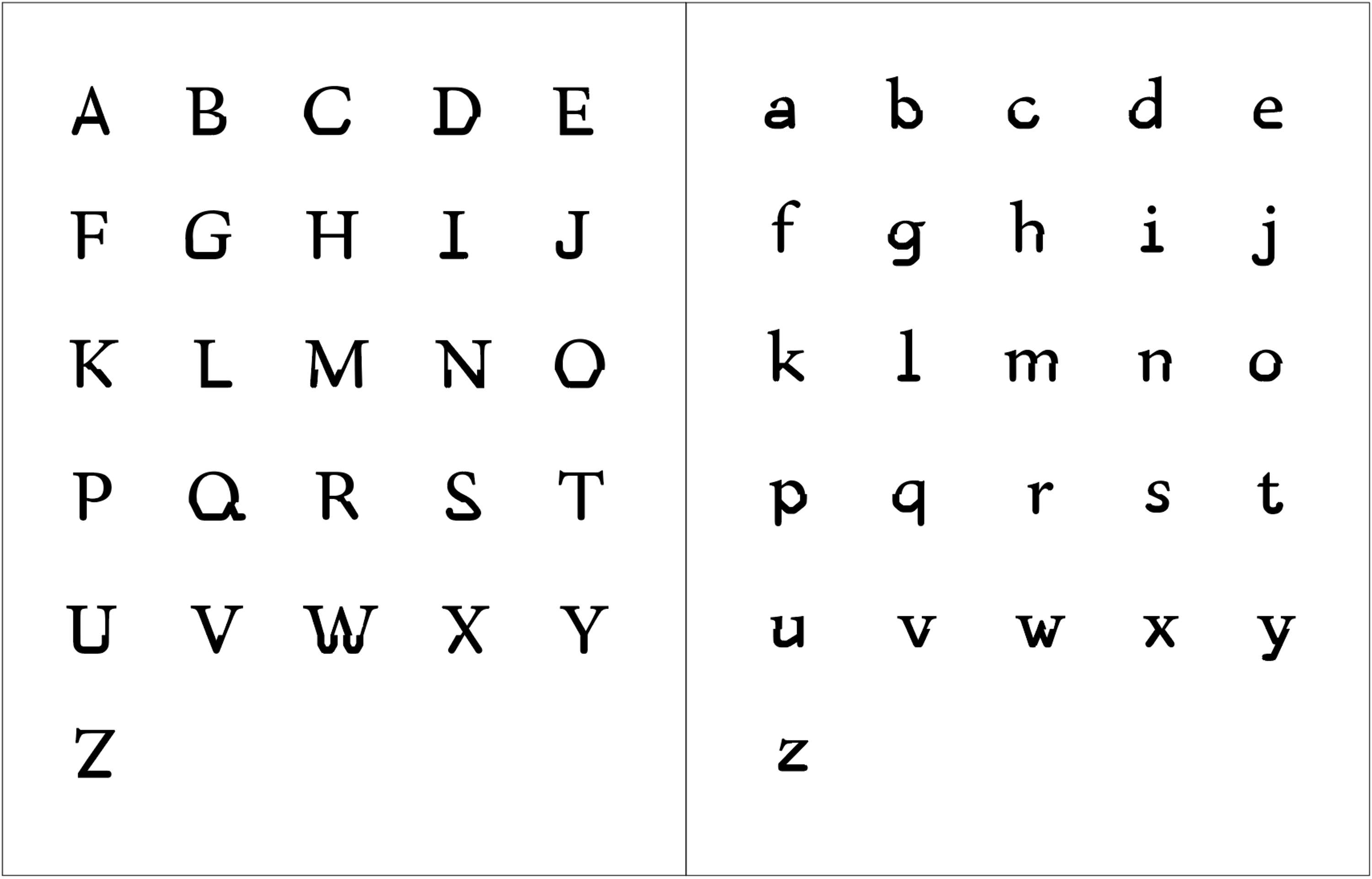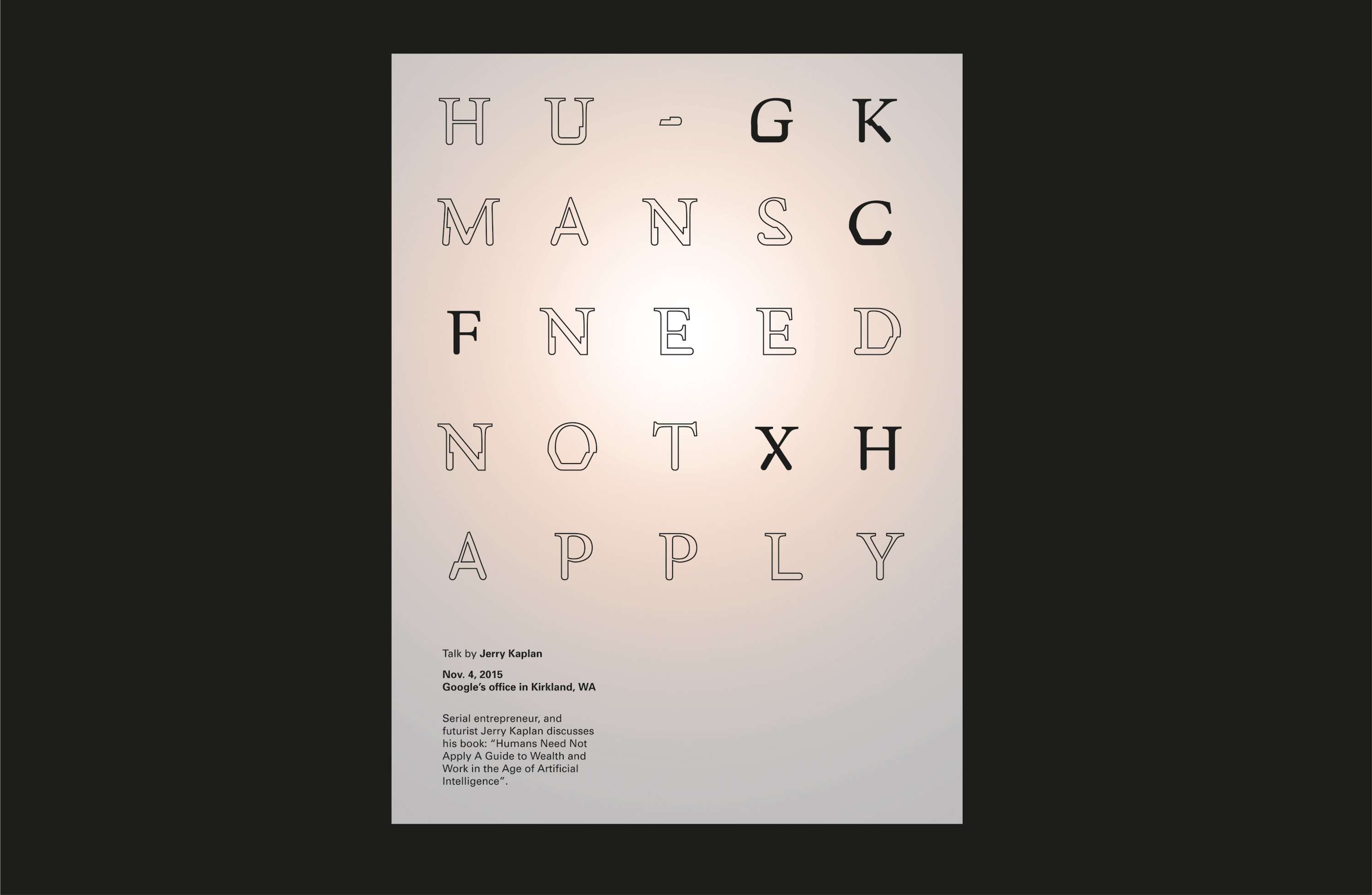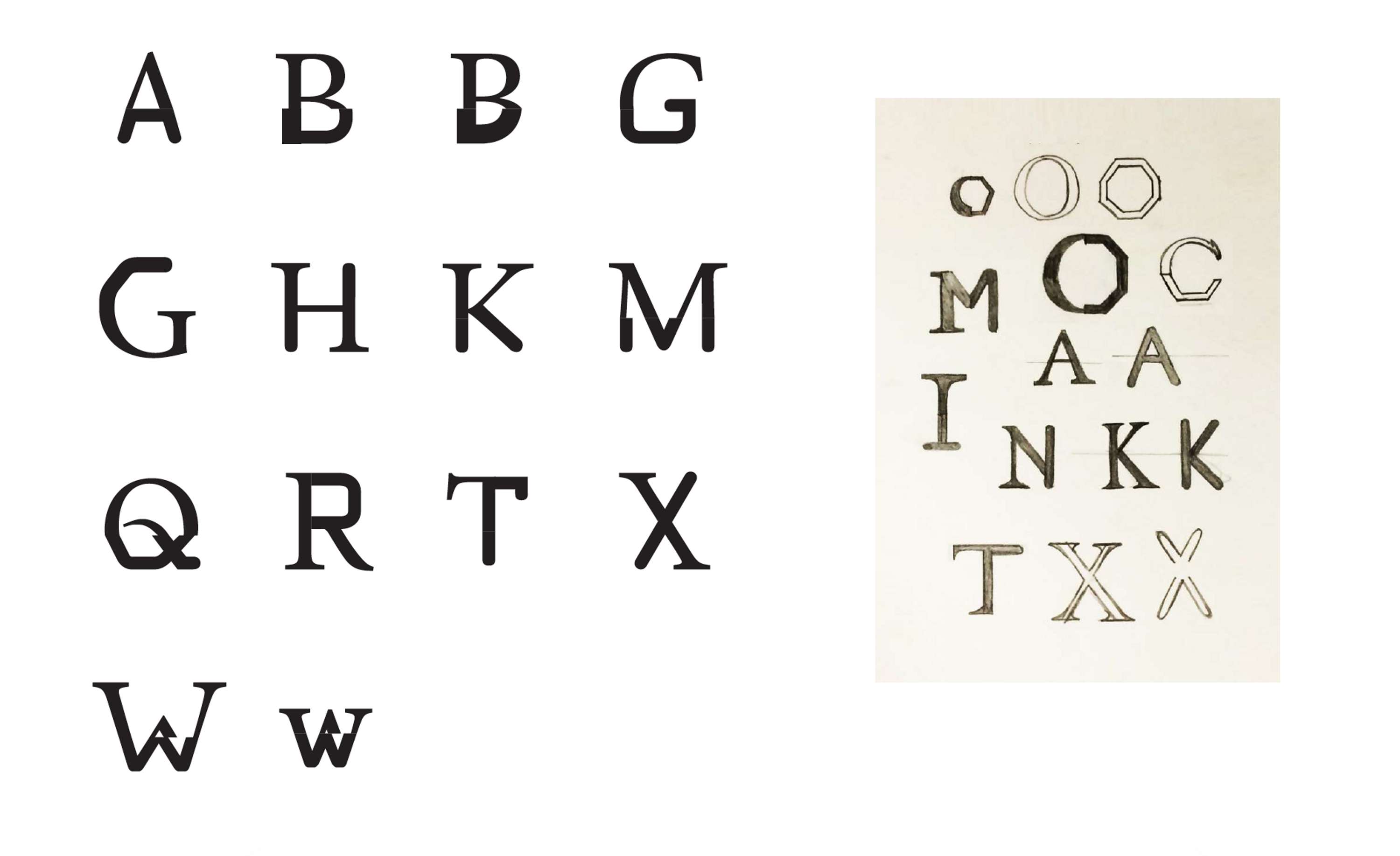
Precursor Font
Inspired by the on-going debate about the future of human and AI, the Precursor font looks at the difference between human and machine in recognizing letterforms, one of the most fundamental means of communication.
The font has features of both Humanist typefaces and early OCR typefaces to emphasize on where human and machine needs aid with reading.
Some of the sketches and unused characters: